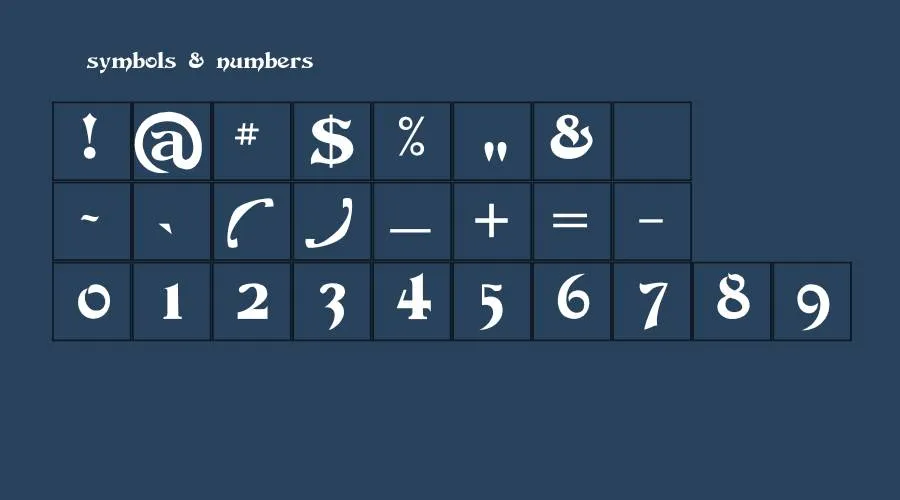
Devinne Swash Font
About Devinne Swash Font
The Devinne Swash Font is a stunning and good-looking typeface. This font belongs to the category of the Retro texture family and was invented by Dieter Steffmann with a unique type of texture and style. This font is suitable for CSS and adobe photoshops.
You can utilize this outstanding typeface with velvet font and make new attractive projects. This font contains a unique type of style and 203 glyphs. It includes 212 stunning characters of the alphabet set such as uppercase letters, numeric, digits, symbols, numeric, and punctuations.
The Devinne Swash font can be utilized in branding projects, promotions, labeling, packaging,  shops name, cafe names, and textile printing. It has a wonderful impact on social media as it can be utilized in making thumbnails and card designs.
This font has excellent characteristics and features that can be utilized in numerous projects.  Many designers utilized this typeface in observable areas and got the awareness of visitors.
• Devinne Swash Bold
• Devinne Swash Regular
• Devinne Swash Italic
Where I can use Devinne Swash Font?
You can use this stunning typeface for logo designs, social media posts, advertisements, posters, film titles, T-shirts, printings, and much more projects.
What type of font is Devinne Swash Font?
The Devinne Swash typeface is a stunning and good-looking typeface. This font belongs to the category of the Retro texture family and was invented by Dieter Steffmann.